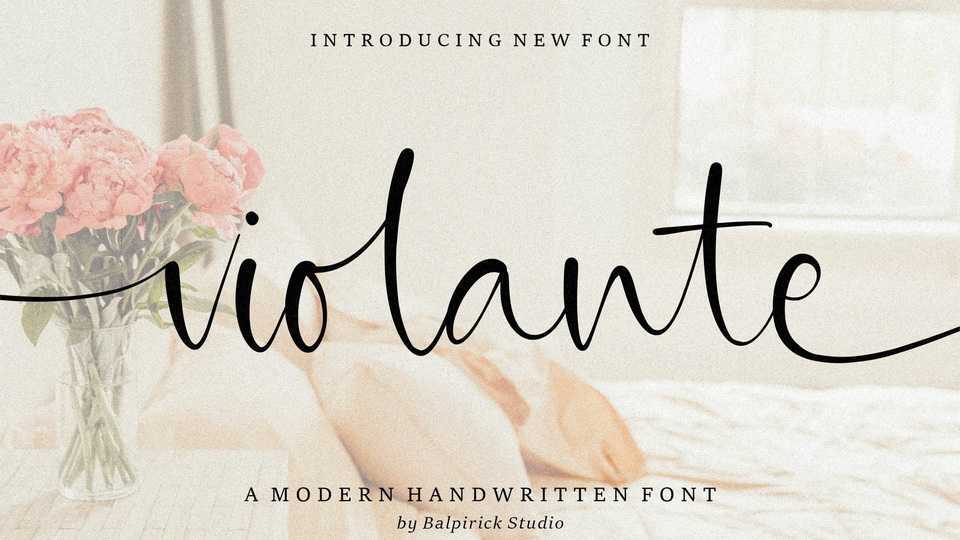
Download Violante font, a modern handwritten typeface with an elegant flow. Violante is perfect for branding, magazine, social media, wedding, or just used to express words above the background.
Designer: Balpirick Studio